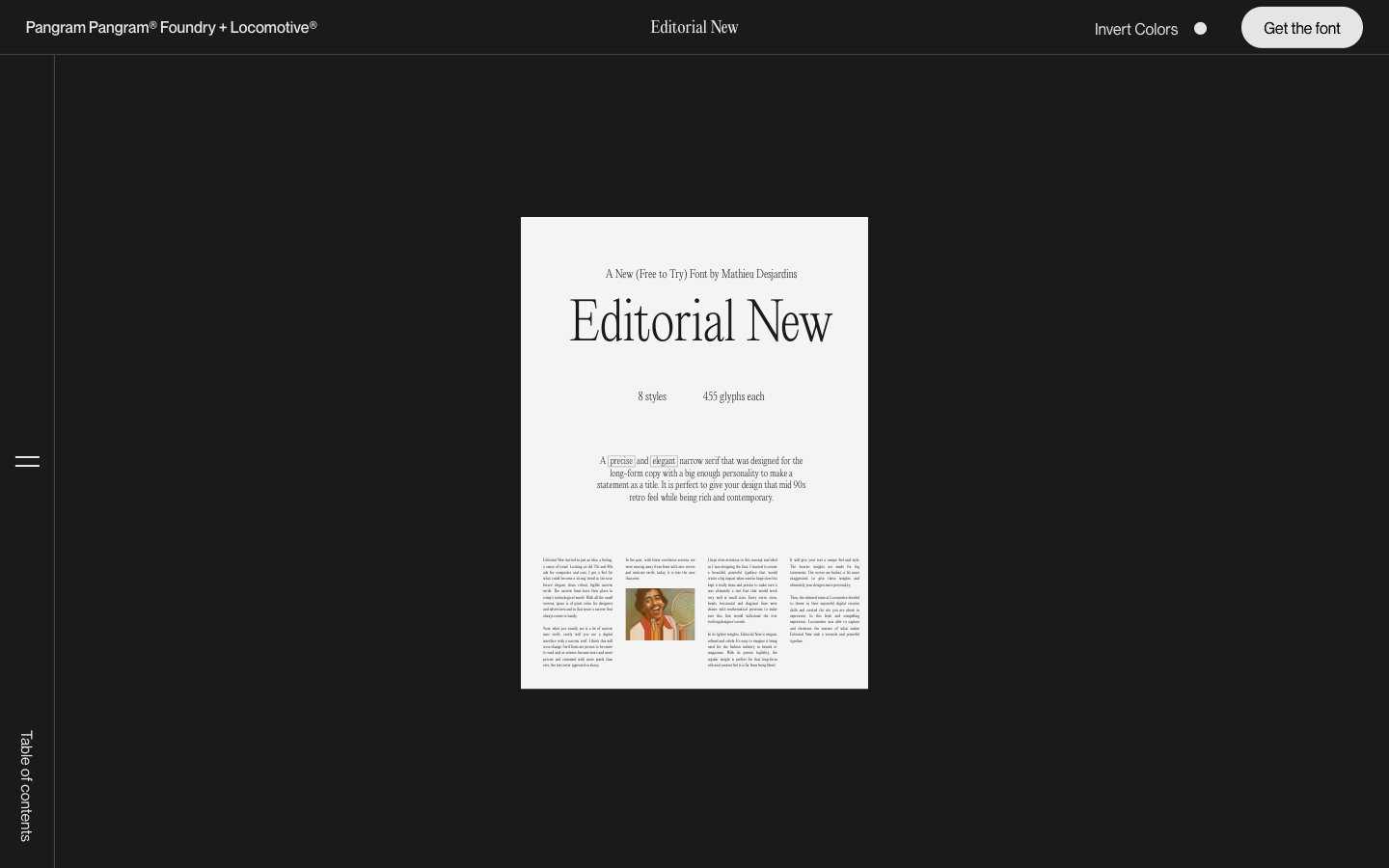
The Editorial New font on real websites
3 websites set in Editorial New, with their font pairings and stack.
Editorial New is a commercial high-contrast editorial serif by Pangram Pangram. A sharp, high-contrast serif with a striking italic, used heavily on studio sites and magazines for big editorial headlines.
Style
Serif, high-contrast editorial serif
Foundry
Pangram Pangram
3 websites in the save.design library use Editorial New. It shows up most on portfolio and personal sites sites. It's most often paired with Domaine Display, Canopee and Neue Montreal.
Recent examples include niccolomiranda.com, editorialnew.com and jasonbergh.com. All 3 websites using Editorial New are on this page, with the rest of their fonts and their tech stack.
On real sites, Editorial New is most often set alongside Domaine Display (33% of them), Canopee (33% of them) and Neue Montreal (33% of them).